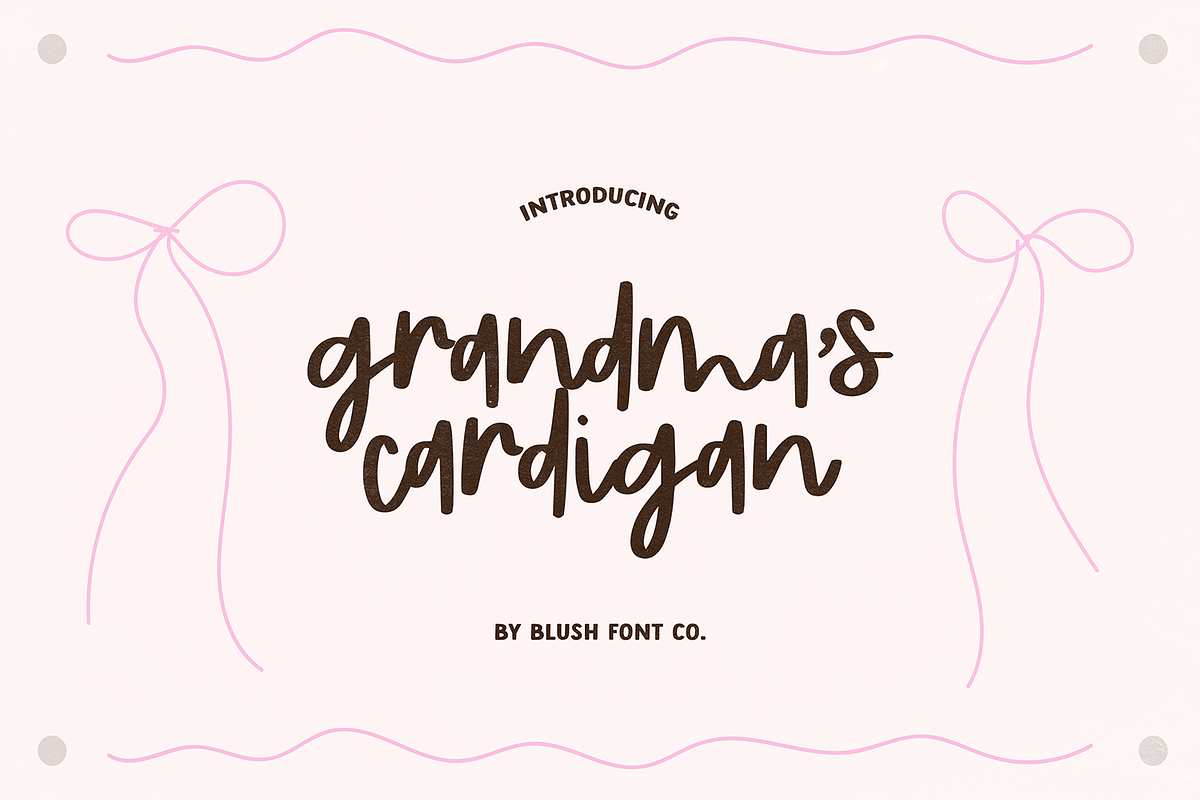
Grandma's Cardigan Brush Script Font Free Download
Please note, to use this font for commercial purposes, you must purchase the full version. Grandma's Cardigan is a charming and playful brush script font that exudes warmth and personality. With its bold, hand-lettered strokes and cozy, vintage vibe, this font is perfect for creating logos, greeting cards, invitations, and other creative projects that need a touch of nostalgia. Whether you're designing for a handmade brand, a special event, or a personal project, Grandma's Cardigan adds a friendly, inviting feel to your work. Test it out and enjoy free download access for personal use. Experience the fun and personal touch of Grandma's Cardigan Brush Script Font Free Download before purchasing the commercial license. Add a warm, handwritten touch to your designs with Grandma's Cardigan.